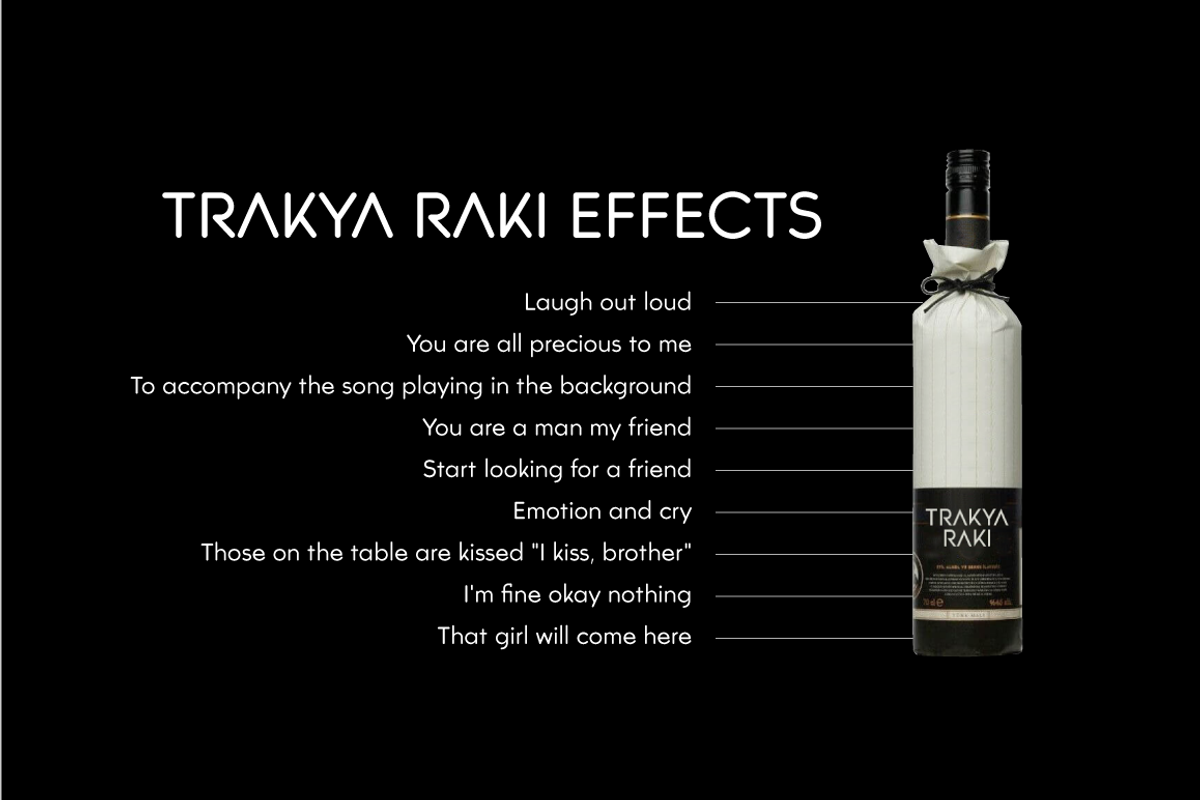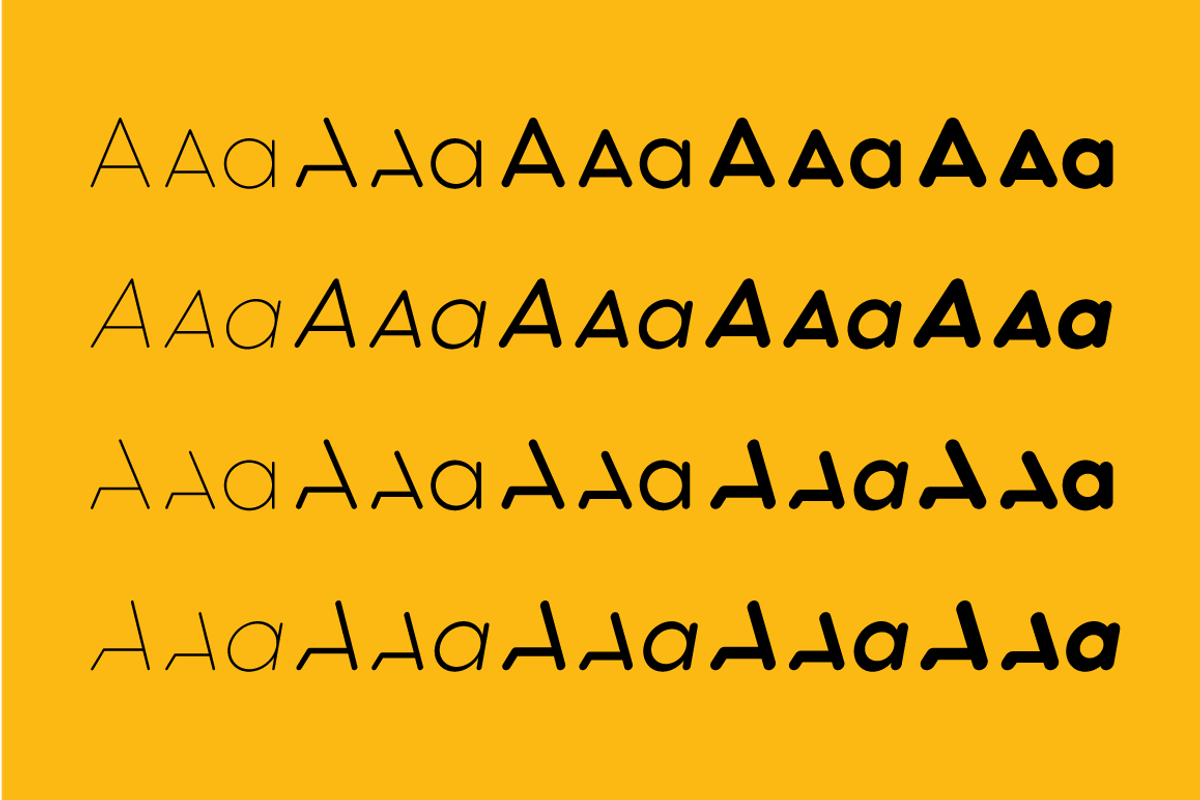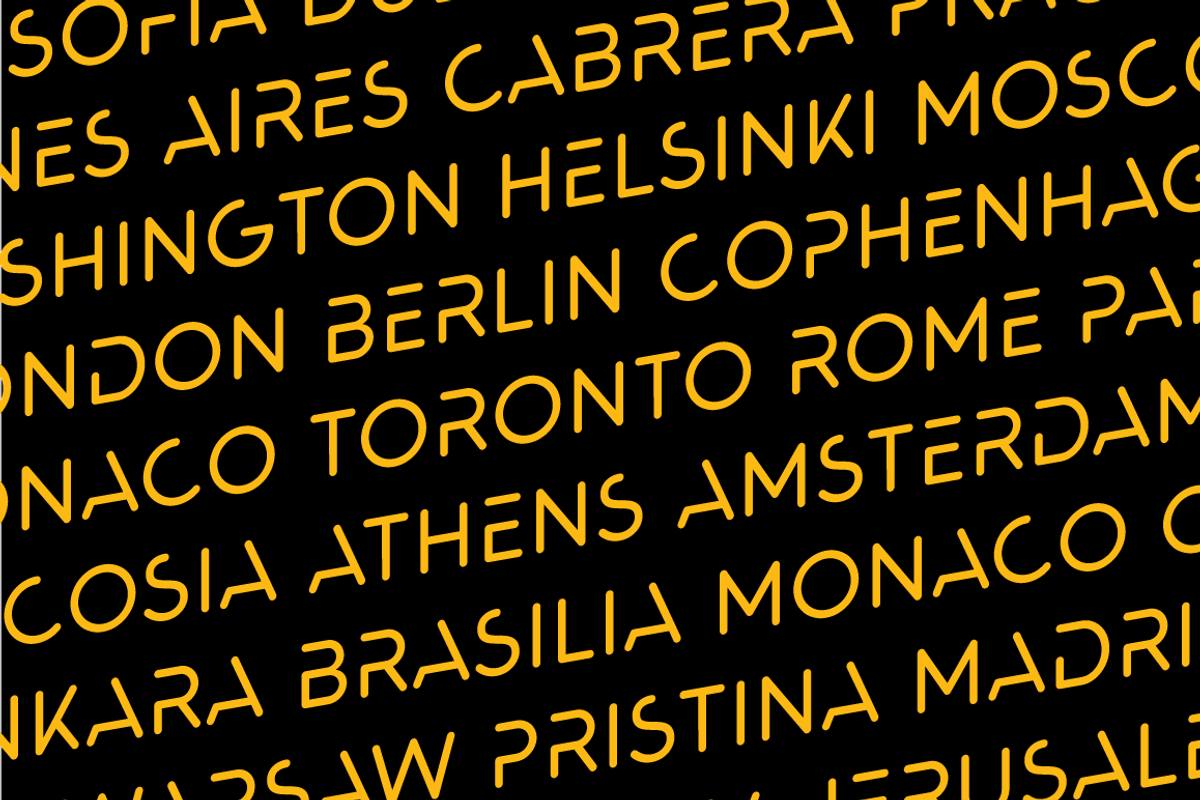
Trakya Rounded
Trakya Rounded is a modern sans serif with a geometric touch. It has a modern streak which is the result of a harmonization of width and height especially in the lowercase letters to support legibility. Trakya Rounded is softer and rounder than it's sibling Trakya Rounded.
They're both ideally suited for advertising and packaging, editorial and publishing, logos, branding and creative industries, posters and billboards, small text, way-finding and signage as well as web and screen design.
Trakya Rounded provides advanced typographical support for Latin-based languages. An extended character set, supporting Central, Western and Eastern European languages, rounds up the family.
The designation “Trakya Rounded 500 Regular” forms the central point. The first figure of the number describes the stroke thickness: 100 Thin to 900 Bold. "Trakya Rounded" comes in 5 weights and italics and has the company of "Trakya Rounded Alt" that also comes in 5 weights and italics for a total of 20 styles. The family contains a set of 630+ characters.
Case-Sensitive Forms, Classes and Features, Small Caps from Letter Cases, Fractions, Superior, Inferior, Denominator, Numerator, Old Style Figures are easily accessible in all graphic programs.
Trakya Rounded is the perfect font for web use.